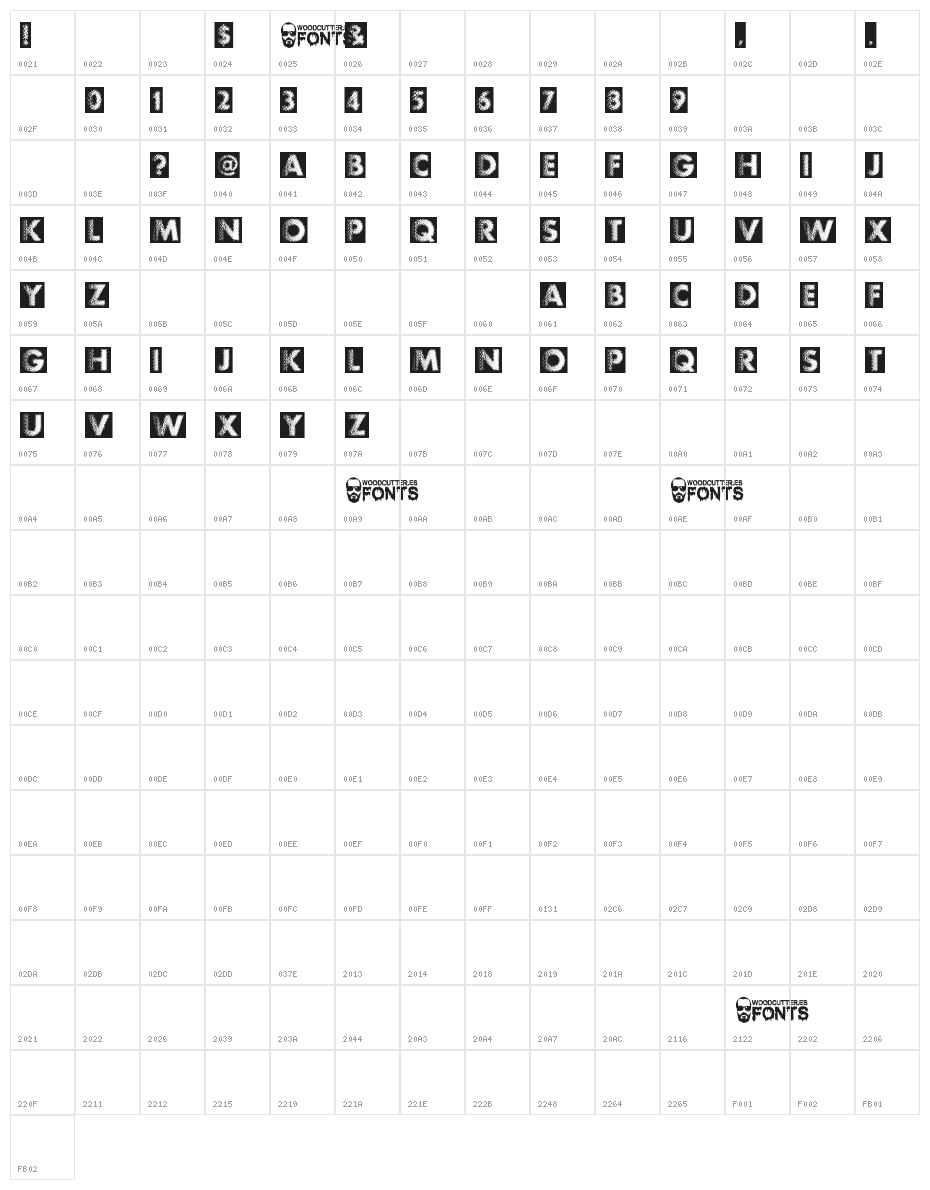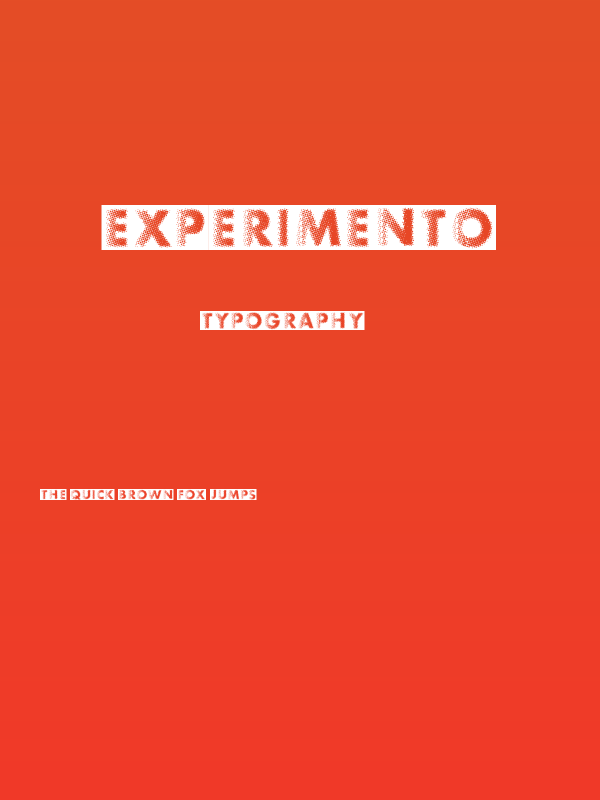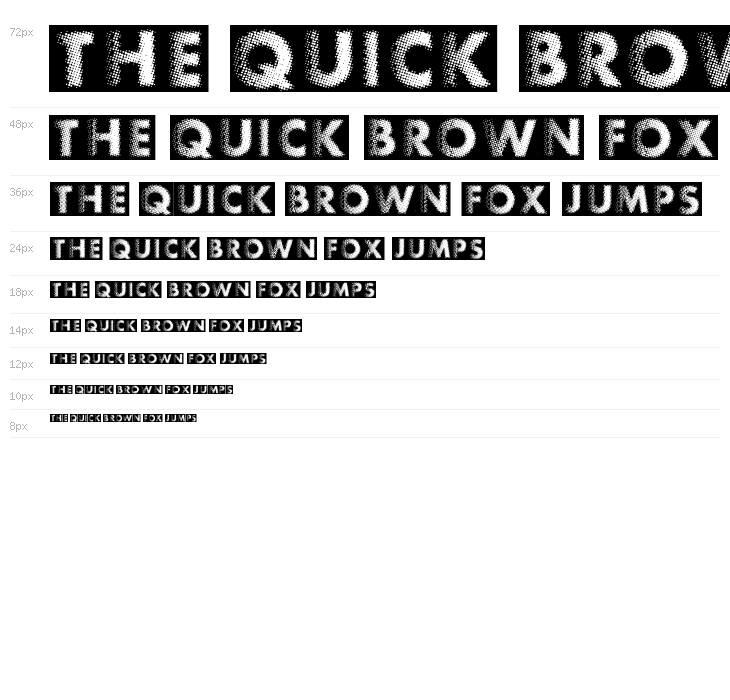
Experimento Font
Experimento Description
This font features a bold and striking design with a halftone dot pattern that creates a sense of depth and texture. The characters are uppercase and numerals, each filled with a gradient of dots that gives a vintage, comic book-like appearance. The style is playful yet impactful, making it suitable for eye-catching designs. The letters are evenly spaced, ensuring readability while maintaining a unique aesthetic. This font is ideal for projects that require a retro or pop art feel, offering a distinctive look that stands out.
| Proposed Projects | Ideal for posters, comic book covers, retro-themed designs, and branding that requires a playful yet impactful look. |